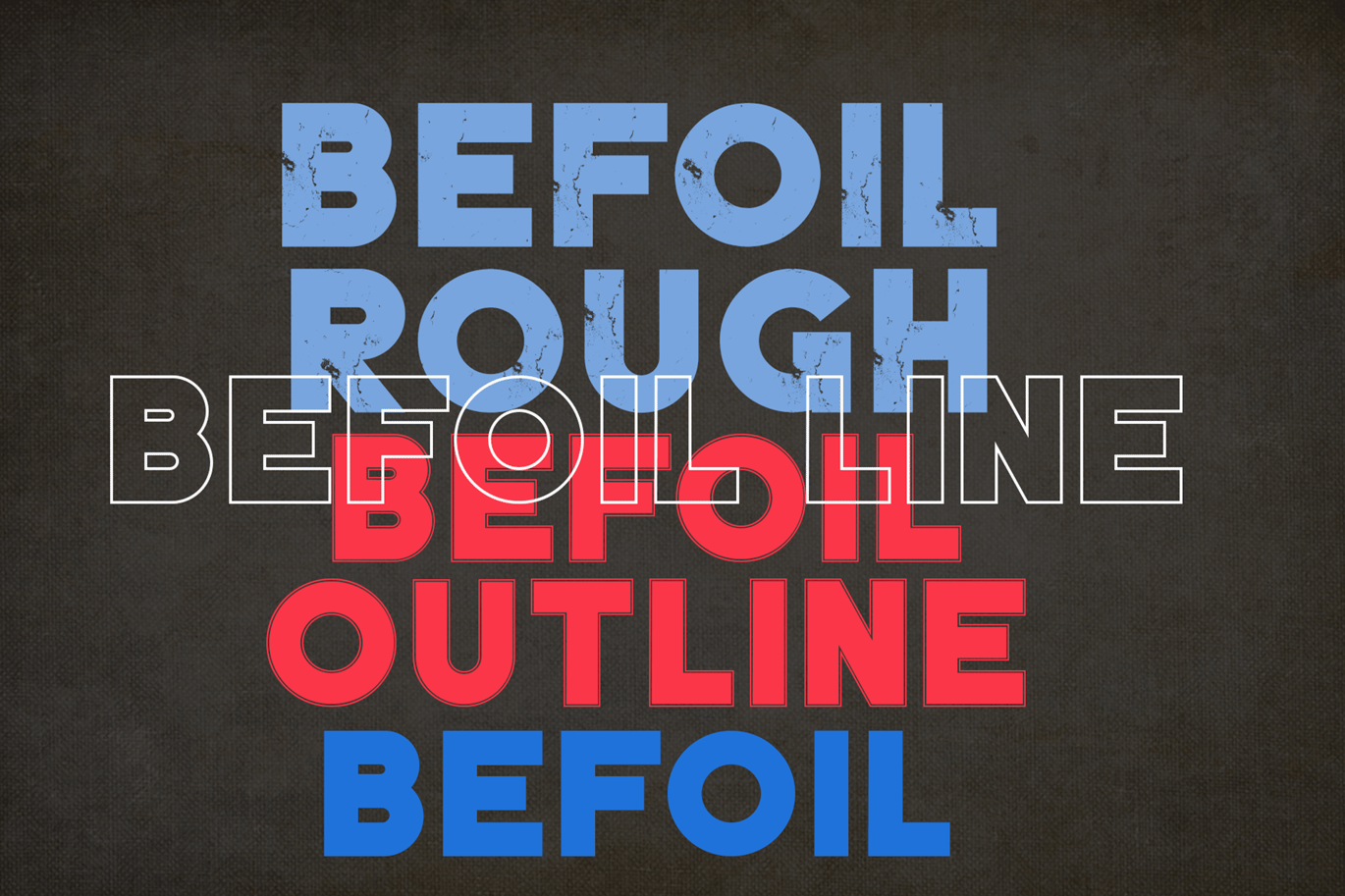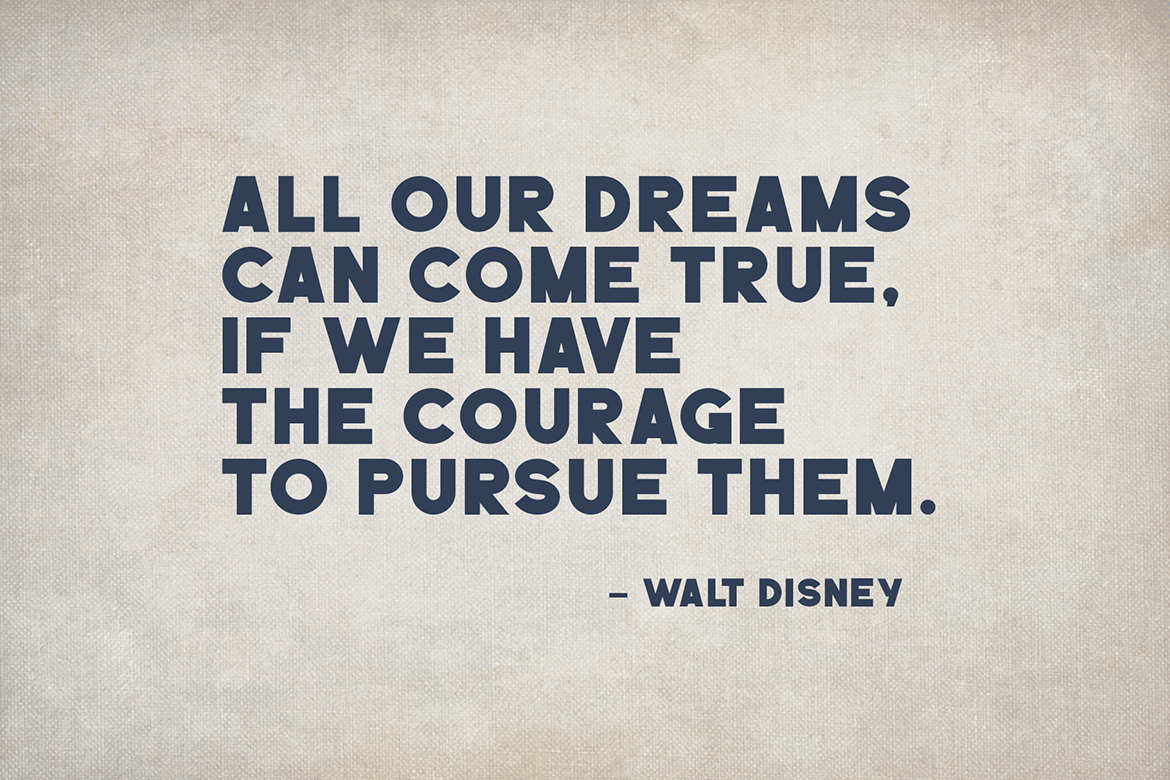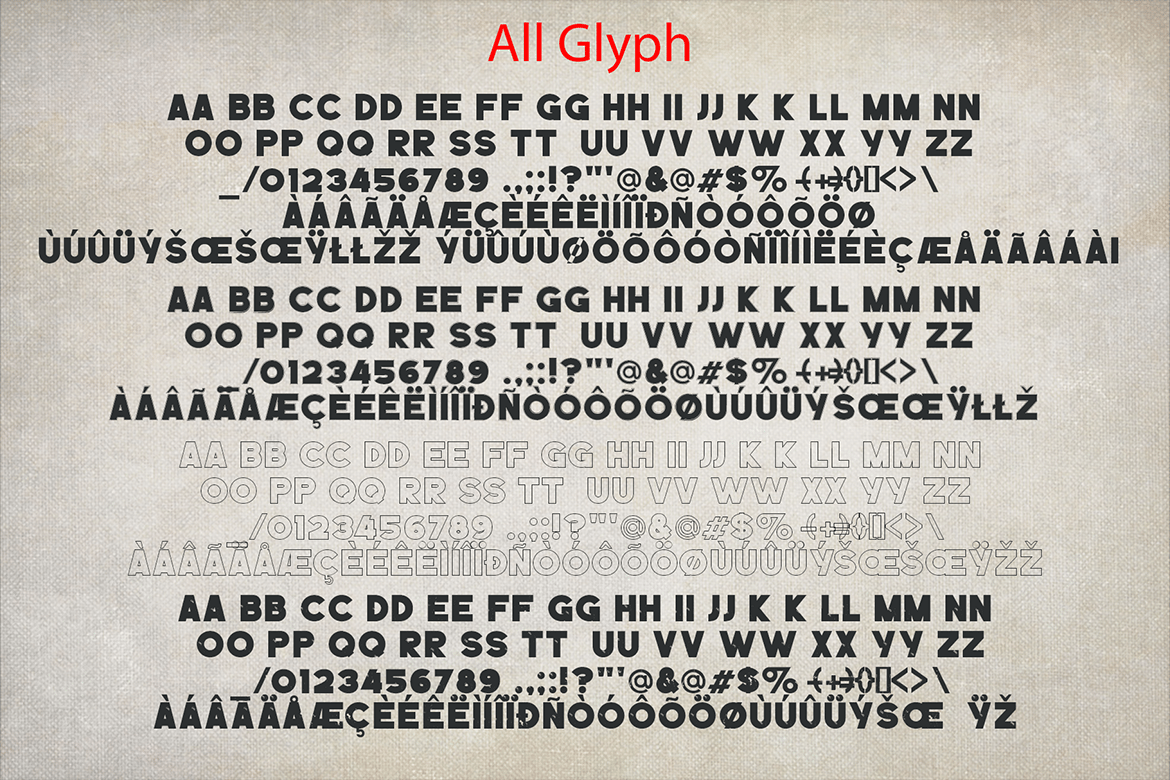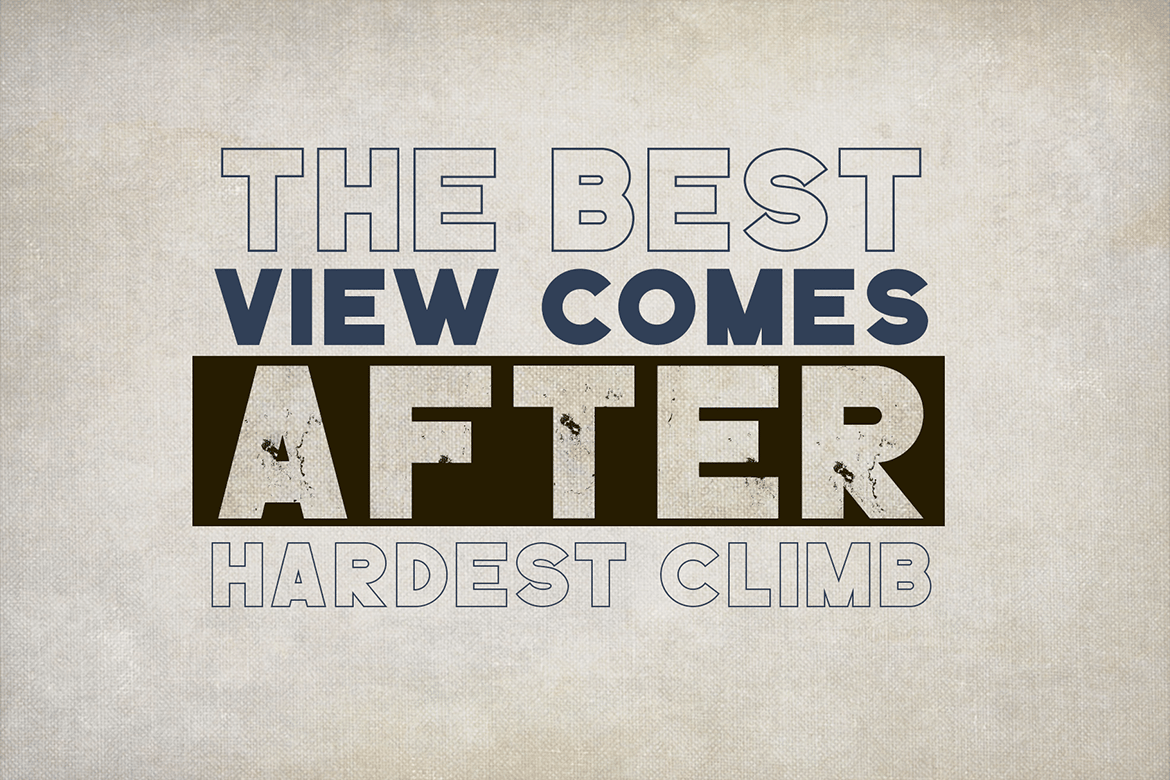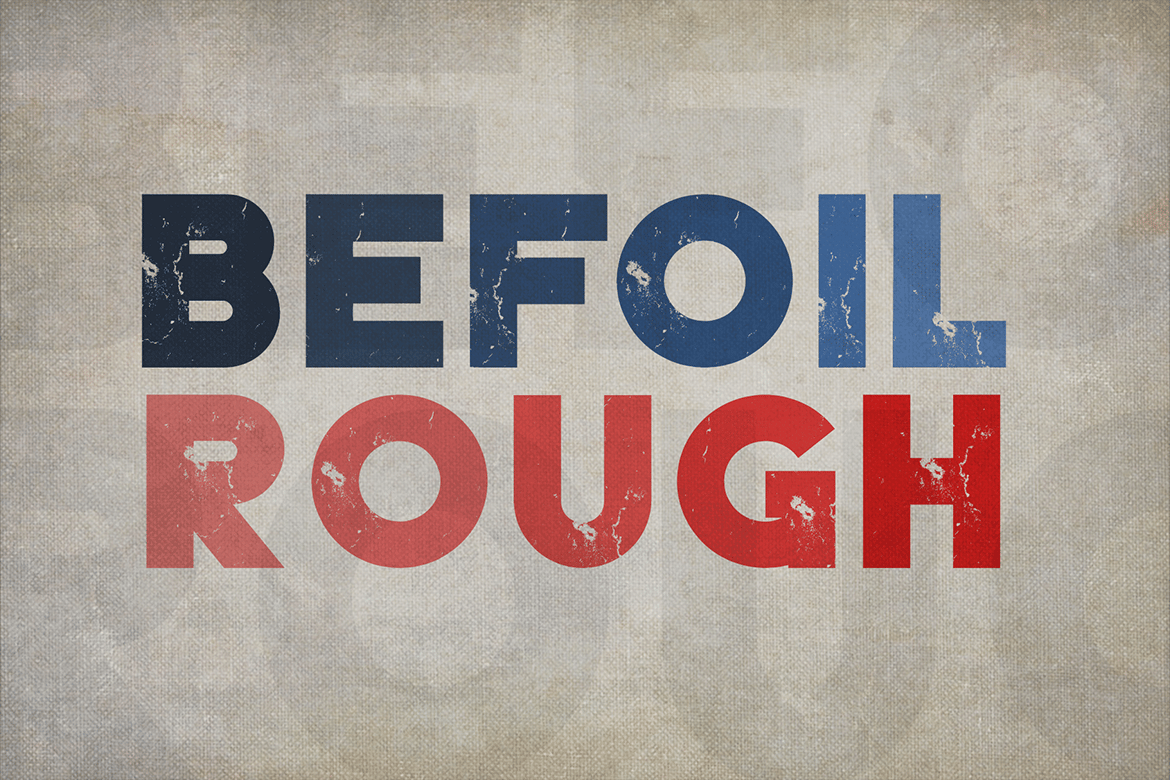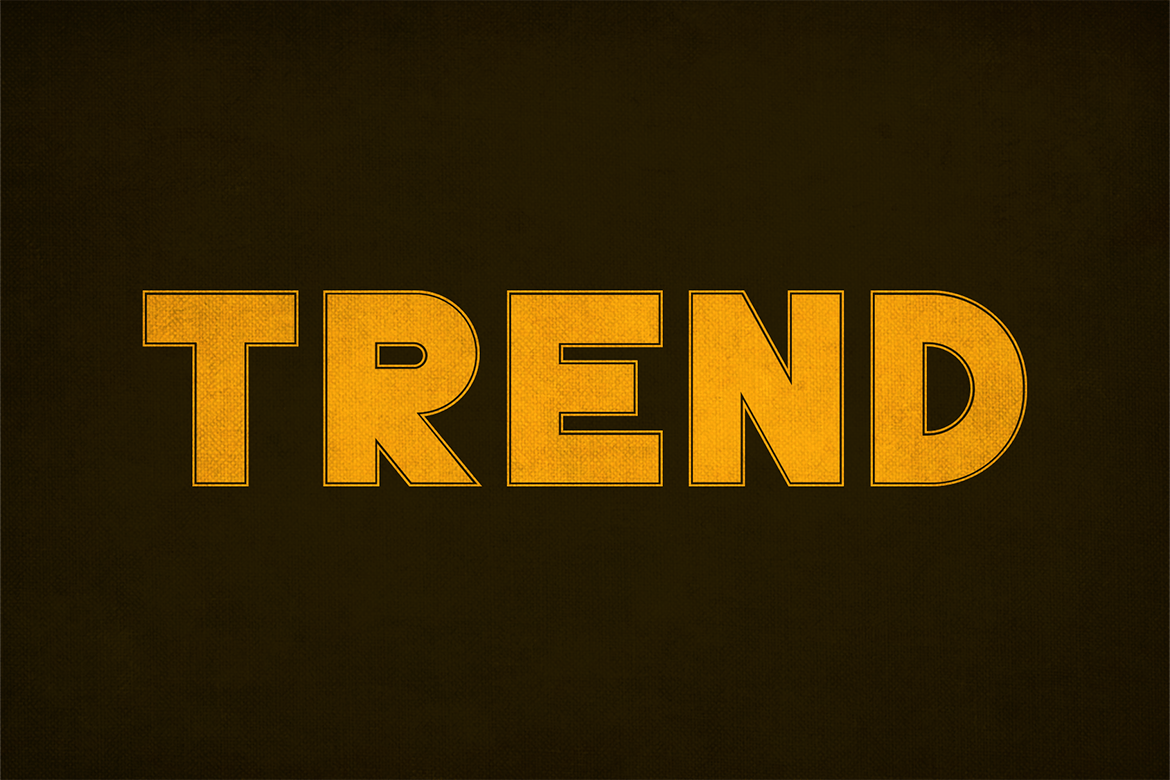
BEFOIL FAMILY FONT WITH 4 STYLES
BEFOIL is a sans bold font, has strong and firm characters, BEFOIL provides a clear and elegant look for logos, quotes, advertisements, and more. BEFOIL is a versatile typography full of the characters you want. with BEFOIL you work.
BEFOIL has style standards, Stylistic Alternate and ligatures. and includes uppercase letters, numbers and punctuation.